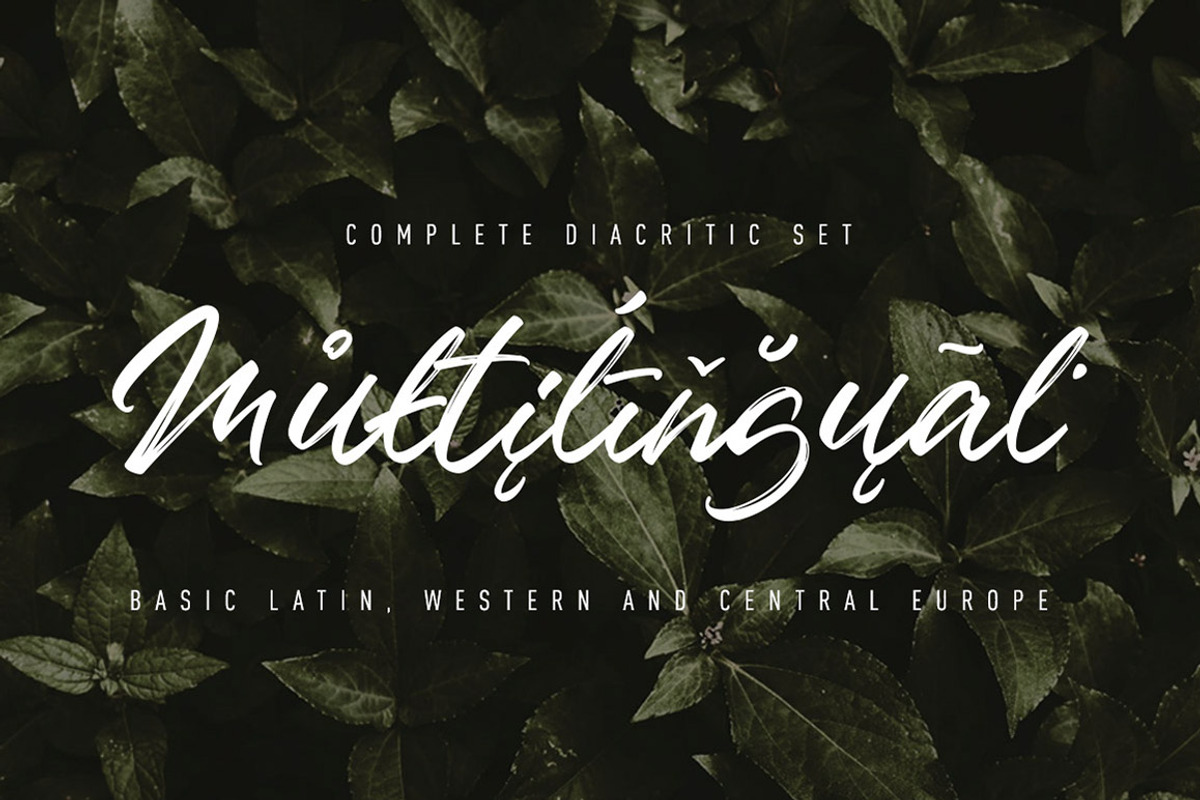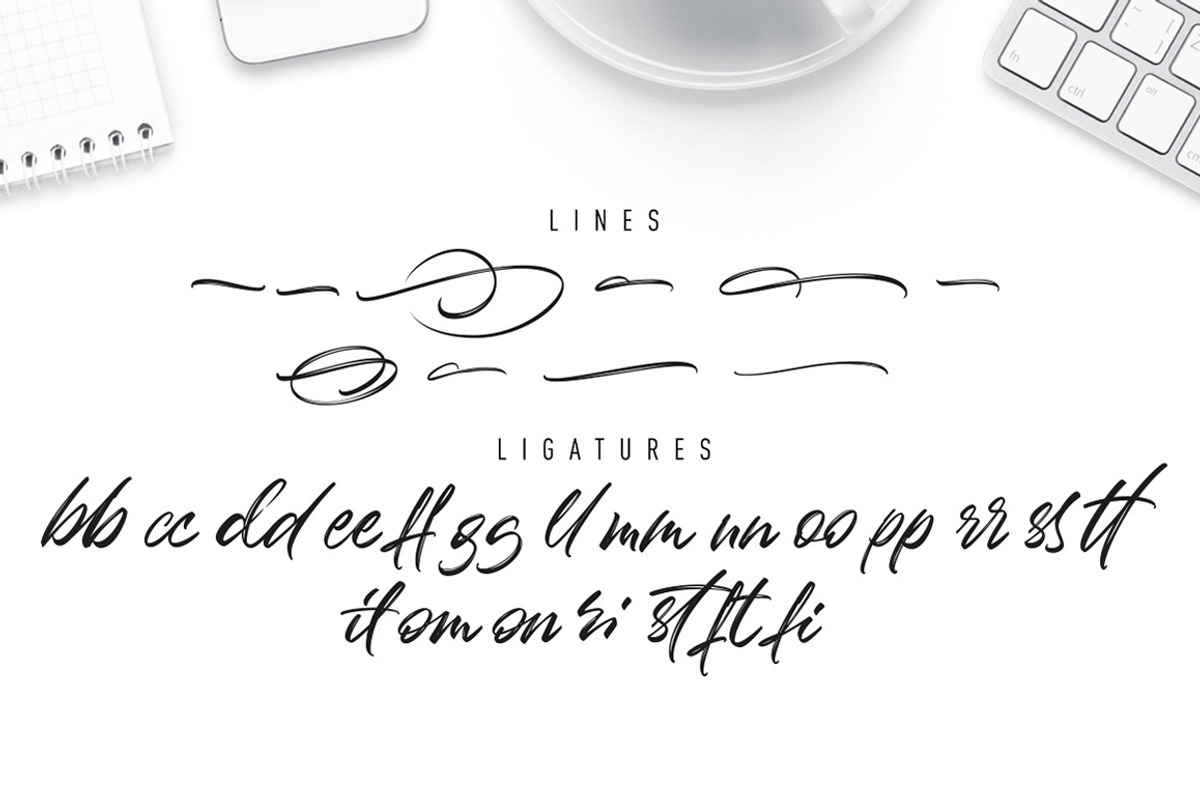
Badass Moon is a cool script font made from the lettering work of Andrey Popovich.
The full commercial version includes a huge set of 115 alternates, contextual ligatures and underlining.